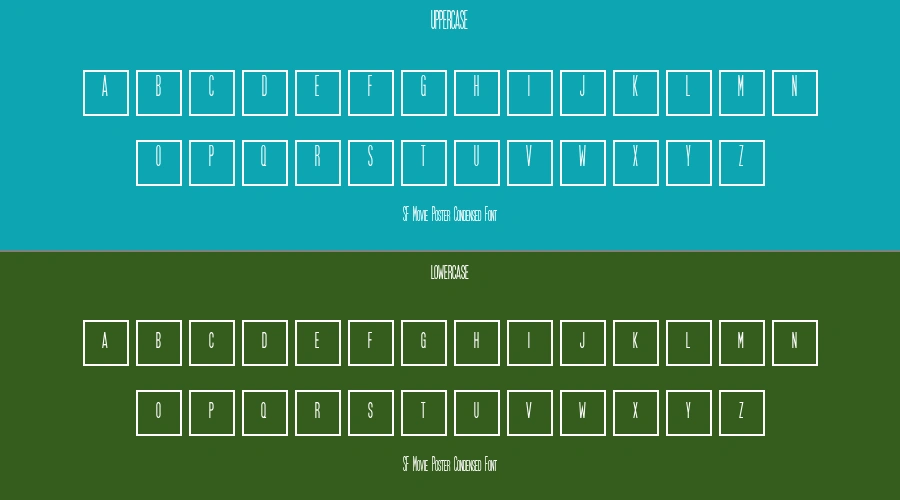
About SF Movie Poster Condensed Font
SF Movie Poster Condensed Font stands out for its distinctive combination of structural clarity and refinement. Ideal for technical manuals, it provides the versatility and user trust that professional projects demand. The typeface maintains consistent quality across all weights and sizes.
Key features include refined engineered curves and practical lining figures, enhancing typographic expression. In exhibition titles applications, SF Movie Poster Condensed Font demonstrates exceptional math typesetting. The ear placement and standards alignment contribute to its distinctive character and professional appeal.